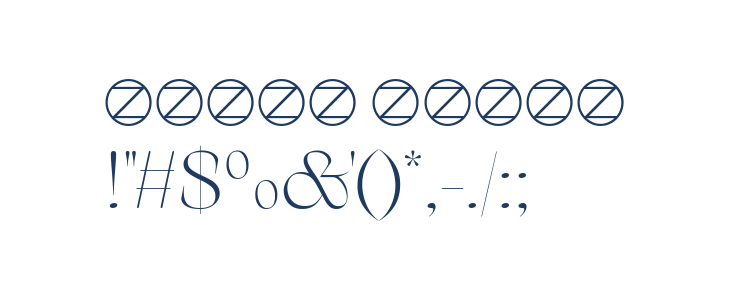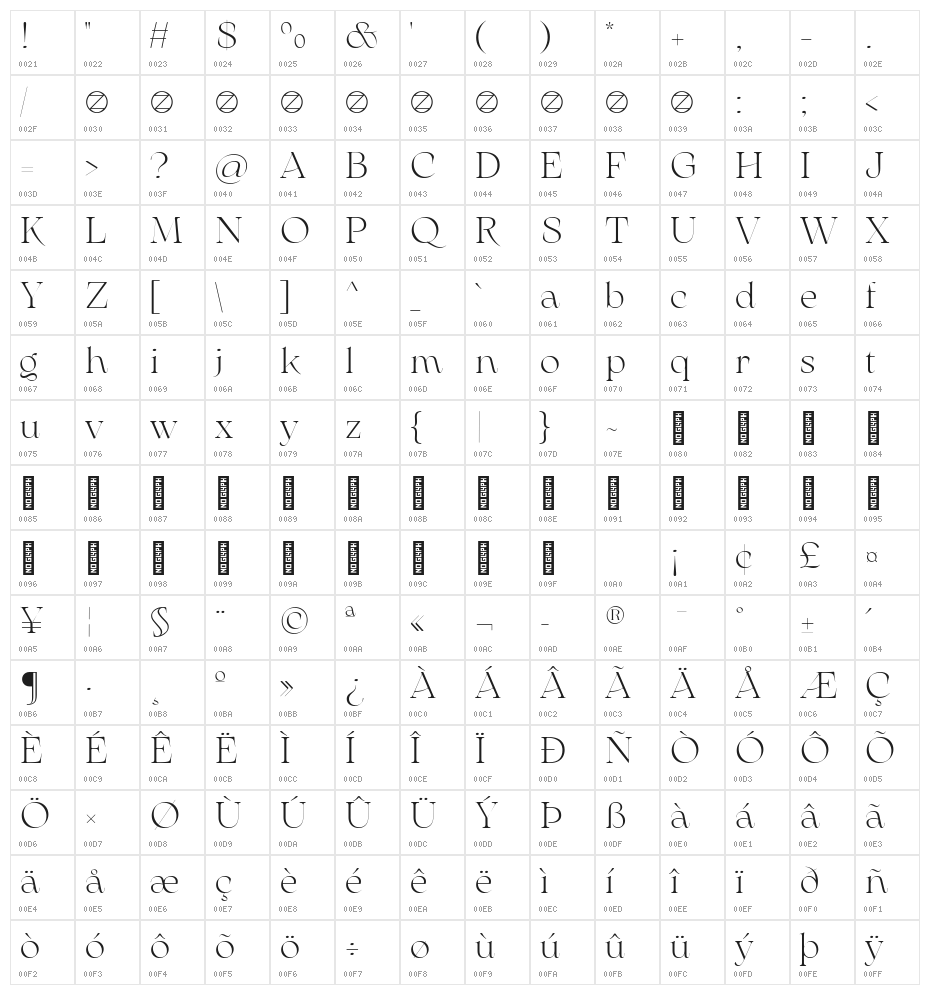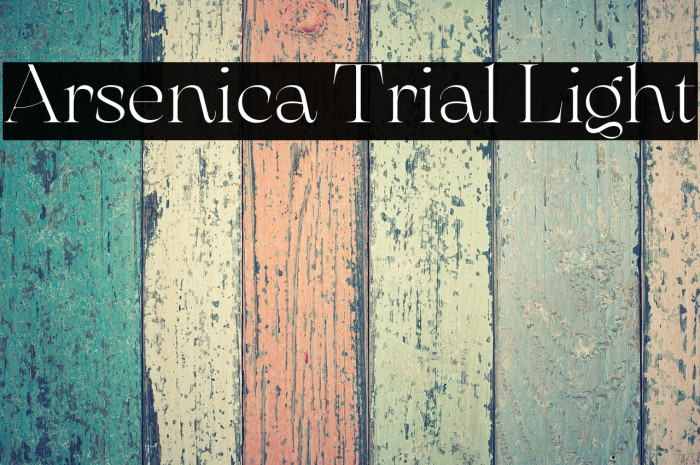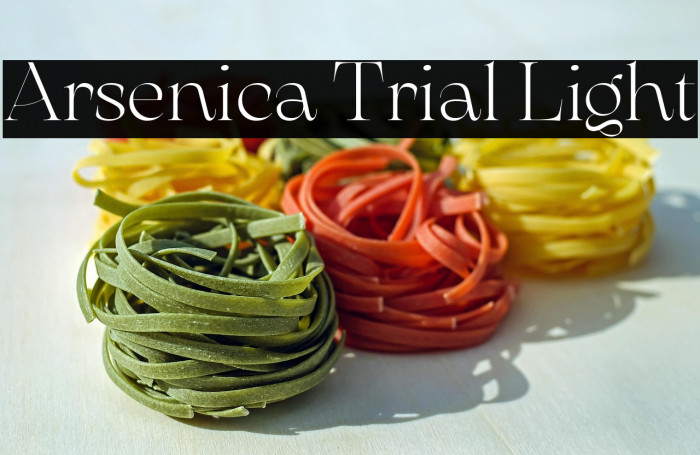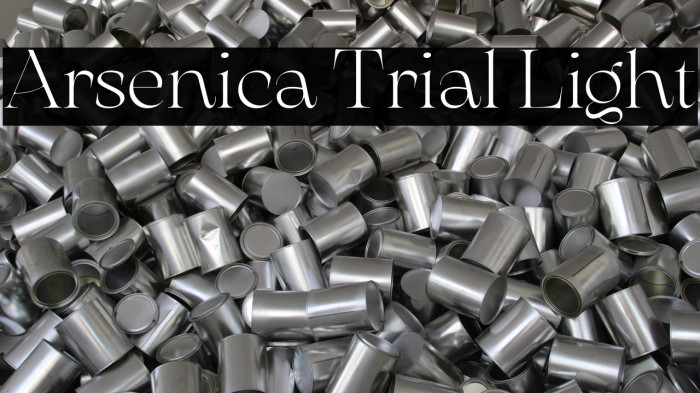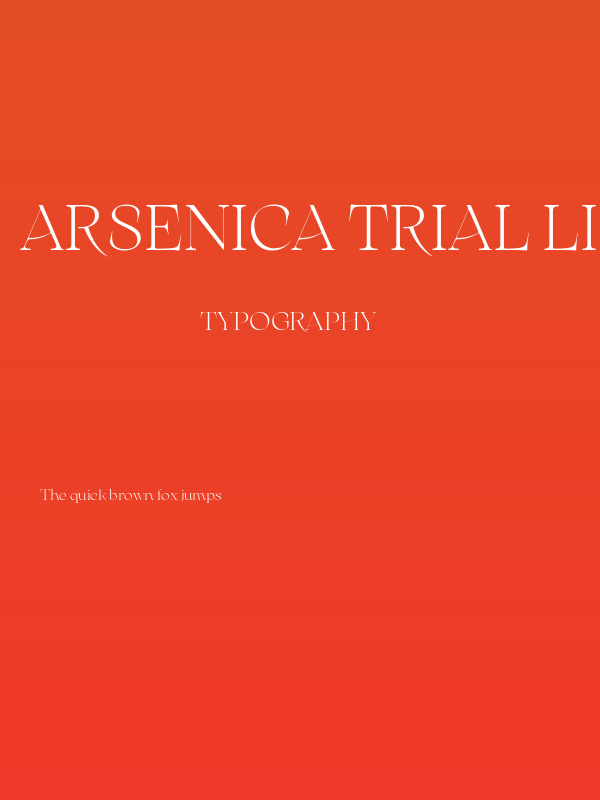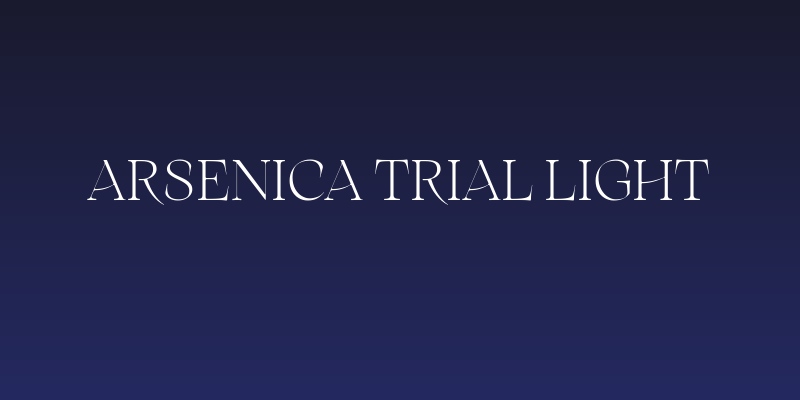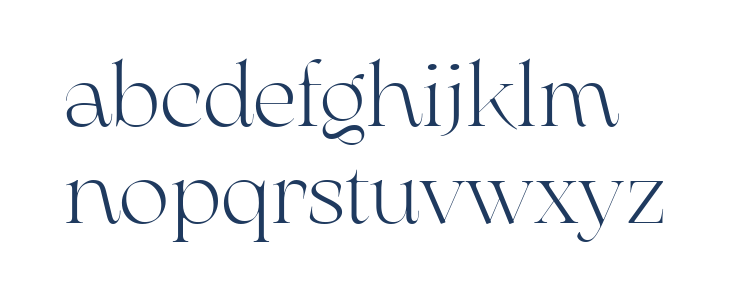
Arsenica Trial Light Font
Arsenica Trial Light Description
This font features a sophisticated and elegant design with a high contrast between thick and thin strokes, giving it a refined and stylish appearance. The characters are well-proportioned with a slight flair on the serifs, adding a touch of classic elegance. The uppercase letters are tall and commanding, while the lowercase letters maintain a graceful flow, making it suitable for both formal and creative applications. The numerals and special characters are designed with the same attention to detail, ensuring consistency throughout the typeface.
| Use Case | Headlines, Logos, Editorial design |
| Proposed Projects | Ideal for luxury branding, editorial design, wedding invitations, and high-end product packaging. |